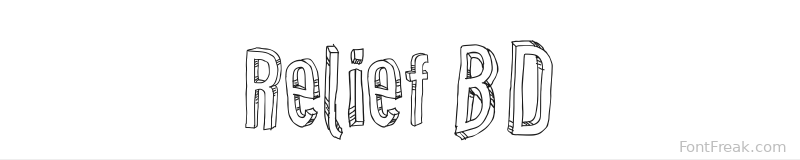
Relief BD
Relief BD is a captivating display font created by Galdino Otten Fonts that showcases a unique blend of depth and character. This decorative font features a distinct relief style, giving it a three-dimensional appearance that draws the eye. The strokes exhibit a moderate weight, with subtle contrast that enhances its visibility while maintaining a playful aesthetic. The spacing between characters contributes to its legibility, making it an excellent choice for attention-grabbing designs.
Perfect for a variety of applications, Relief BD excels in settings that require a bold statement. It is particularly well-suited for eye-catching movie posters, where its dynamic design can convey energy and excitement. Additionally, this font shines in creative restaurant menus, adding a touch of flair that can enhance the dining experience. It's also an excellent choice for greeting cards and invitations, especially for casual events like birthday parties or informal gatherings. Graphic designers will appreciate its versatility, while small business owners can leverage its charm to attract customers to their branding materials.
Targeted at graphic designers, small business owners, and content creators, Relief BD offers a fresh alternative to standard fonts, enabling users to inject personality into their projects. The font's freeware license allows for easy accessibility, making it an attractive option for those looking to enhance their designs without incurring costs.
What sets the Relief BD font apart is its ability to combine playful design with practicality. Its unique style not only captures attention but also ensures clarity in communication. For anyone seeking a distinctive typeface that stands out while remaining functional, the Relief BD font free download is an exceptional choice.